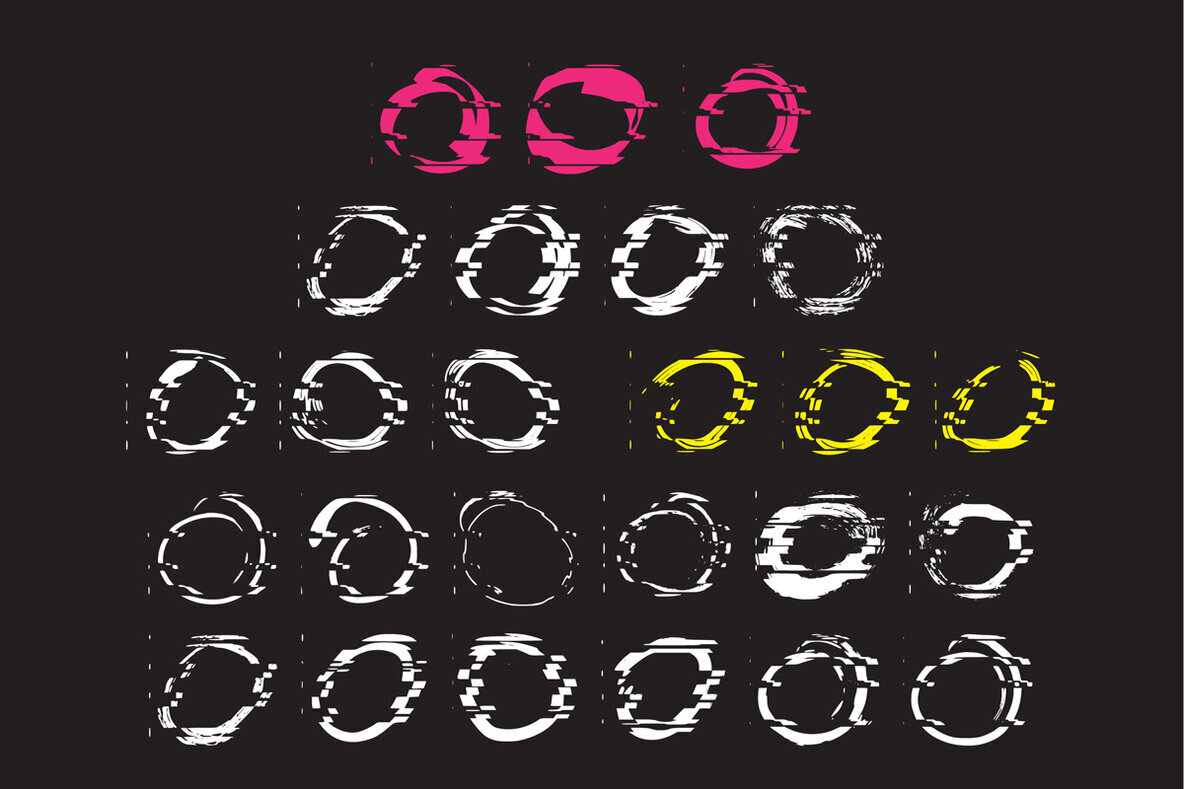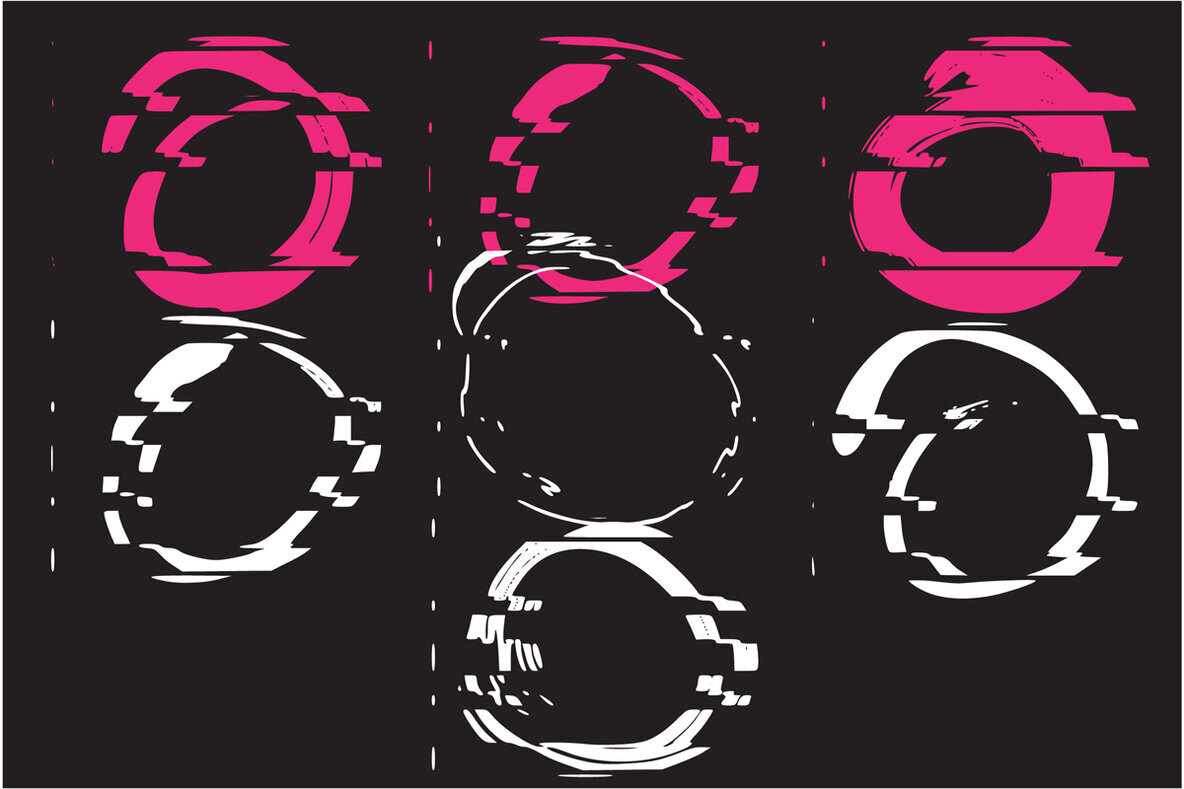
Glitch Circles Font
Glitch Circles
Glitch Circles is a cool, uniquely shaped, pixelated dingbats font. Add a distorted and trendy touch to your designs with this unusual font!